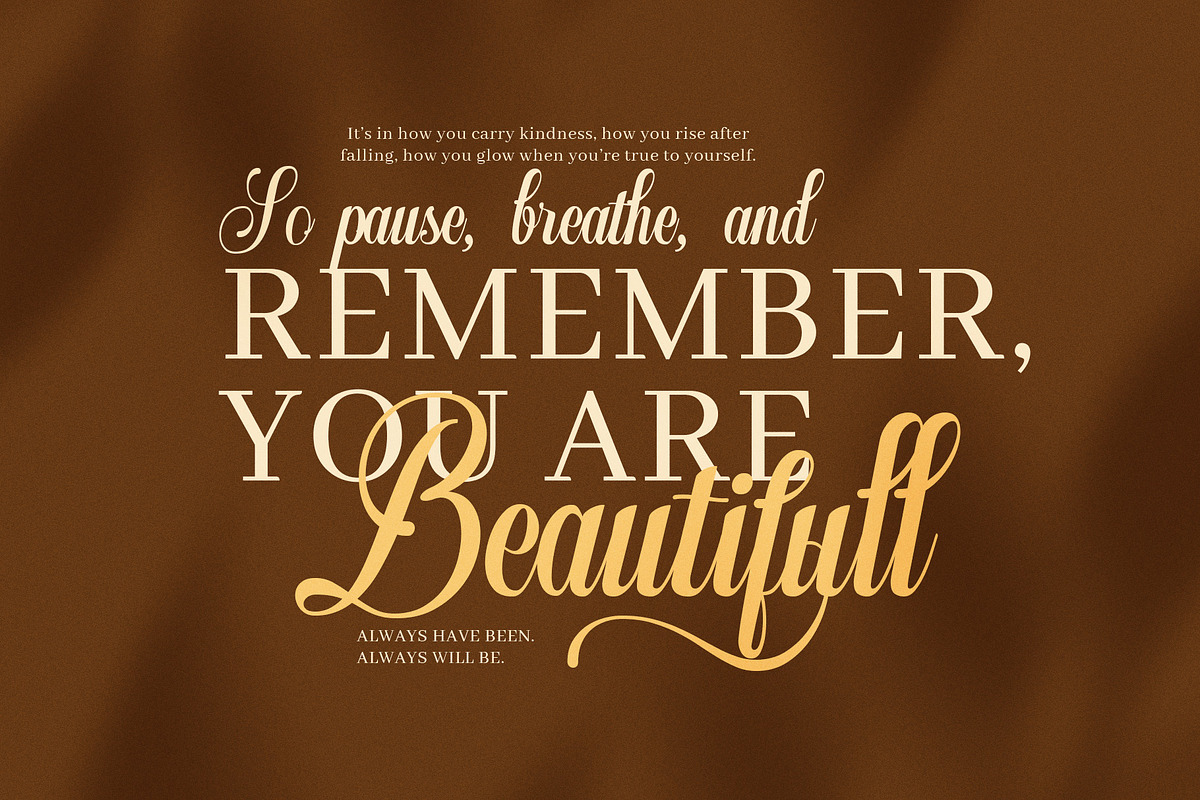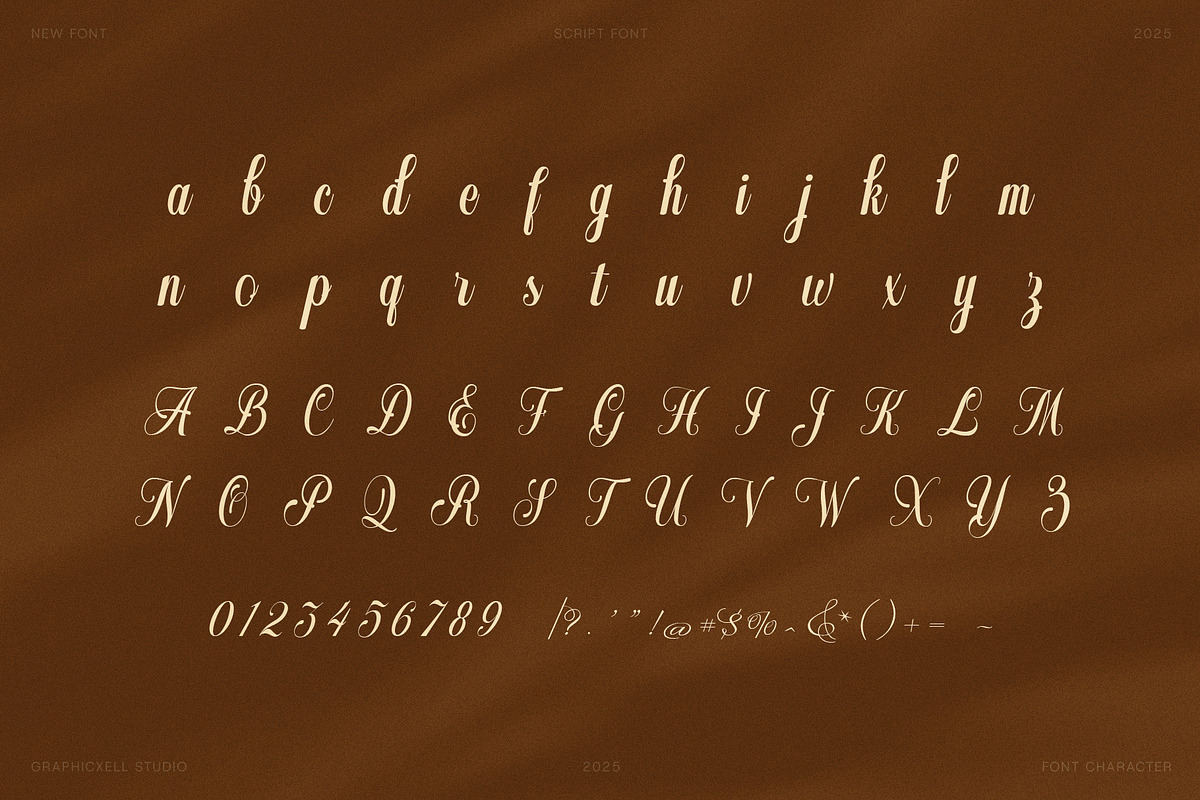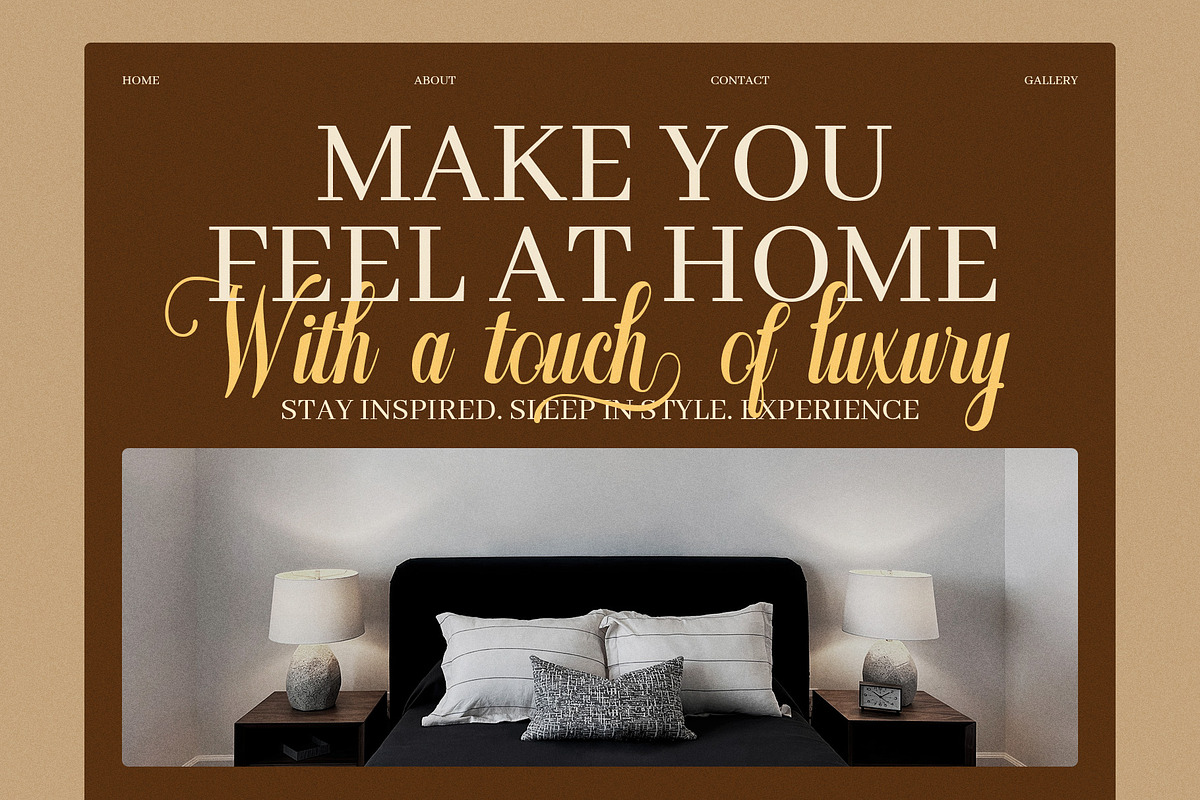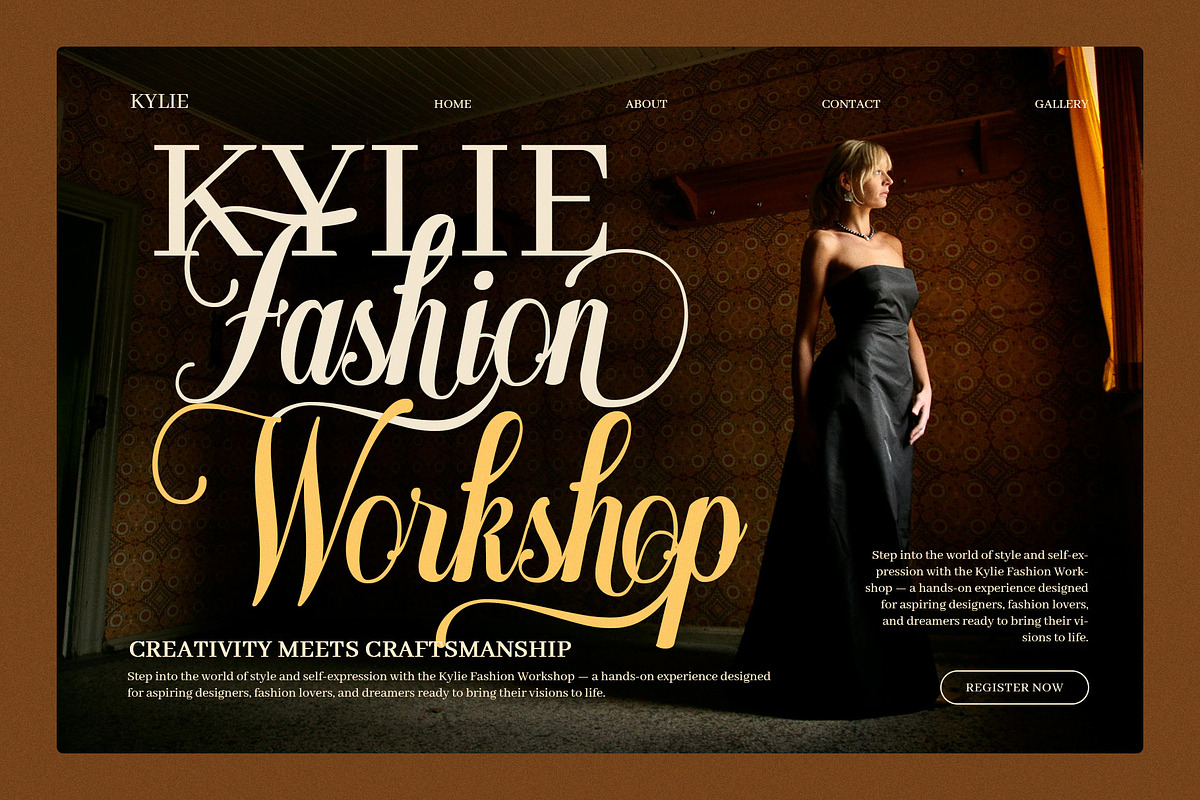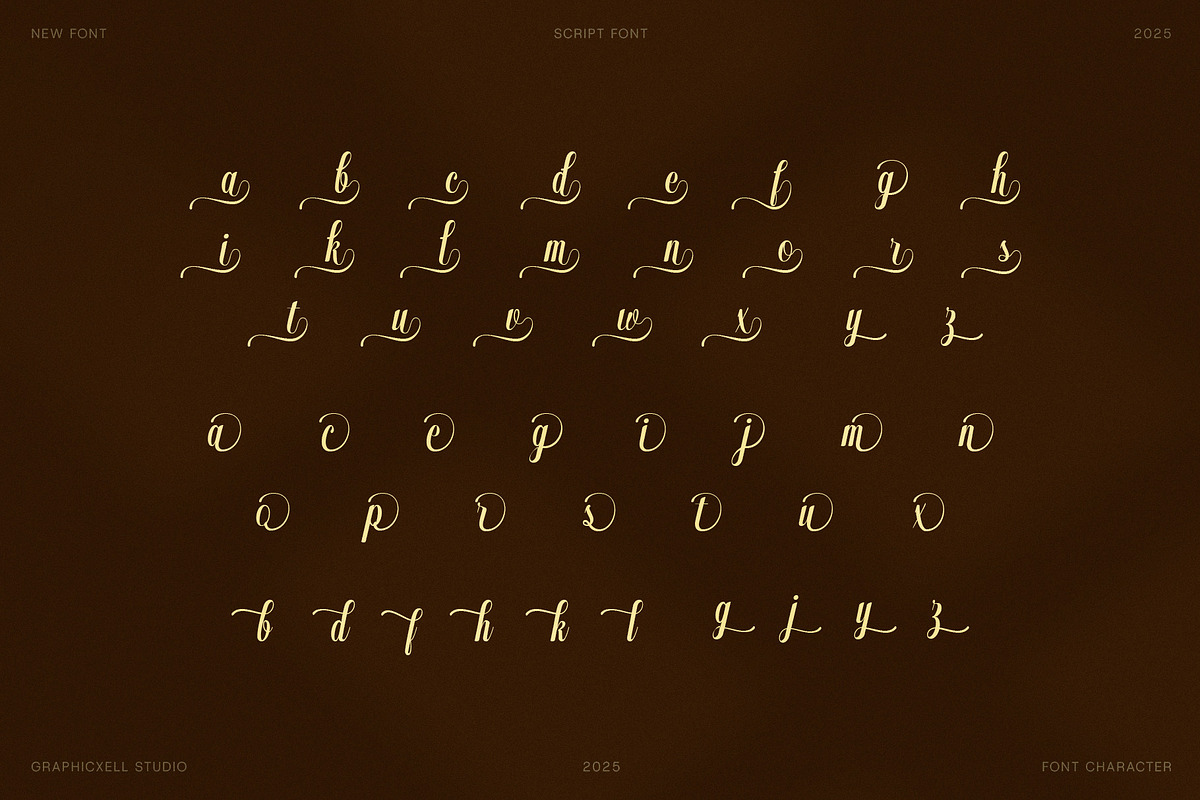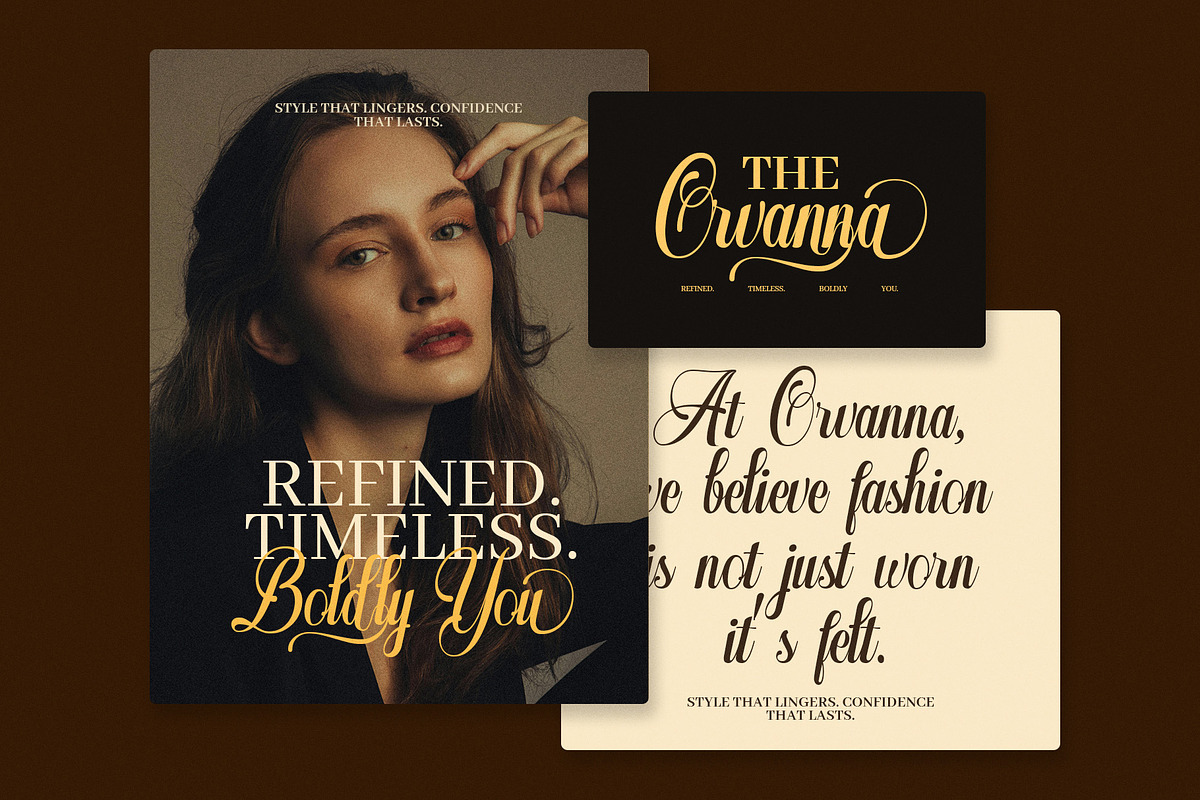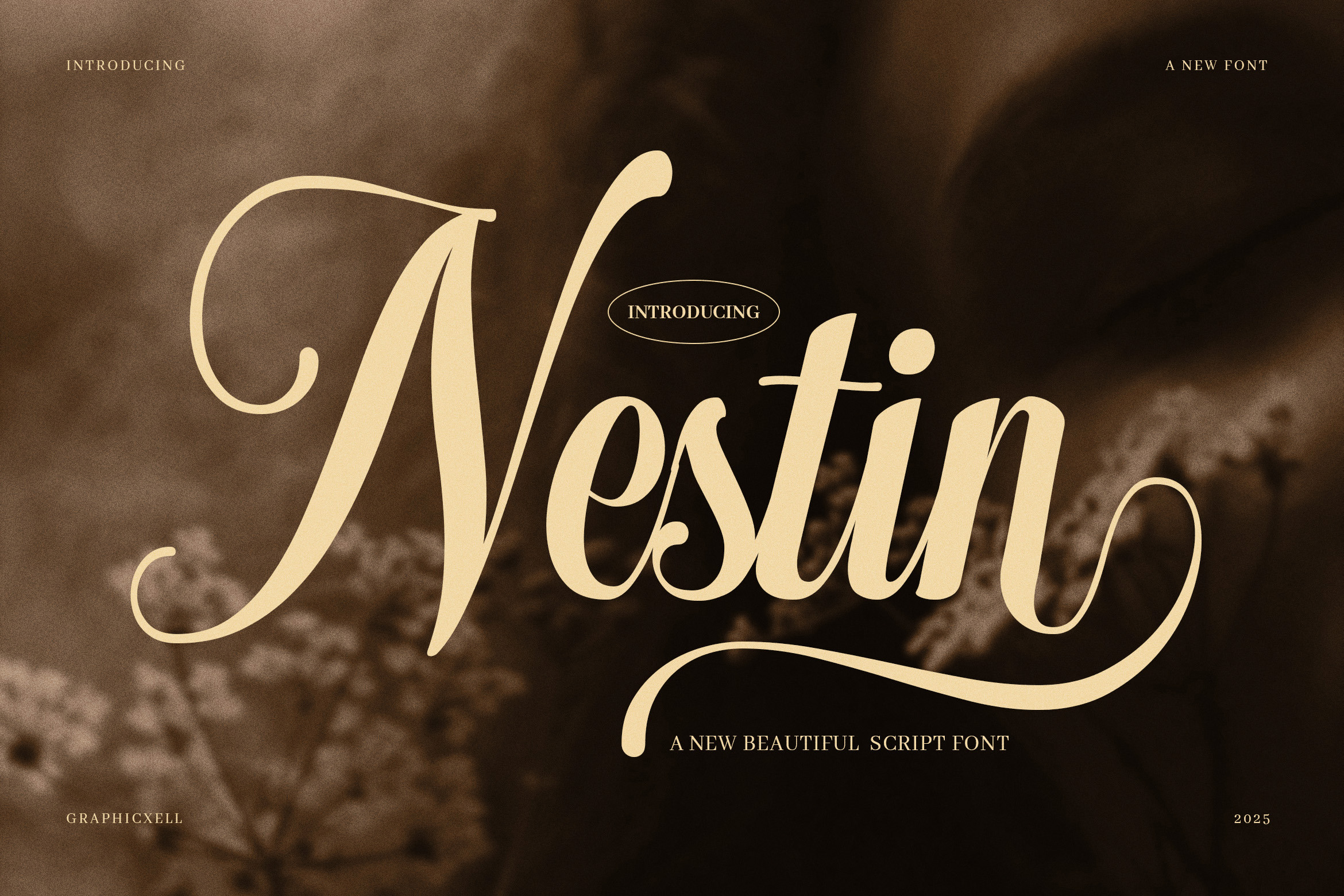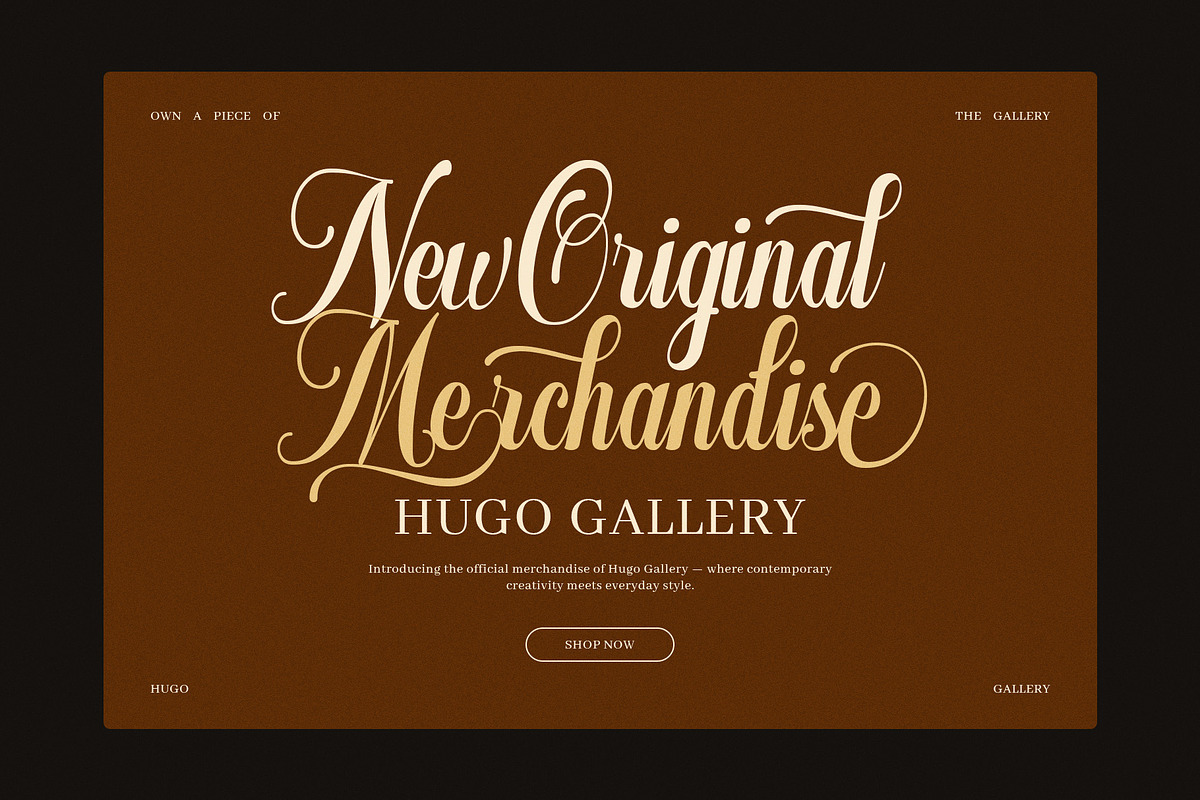
Nestin Elegant Script Font
Nestin is an elegant script font created to express beauty, warmth, and refined emotion. It features flowing strokes, graceful curves, and balanced letterforms that feel natural and expressive. Because of its smooth rhythm, Nestin brings a personal and luxurious touch to every design.
This script font blends modern elegance with classic calligraphy style. As a result, it works beautifully for fashion branding, lifestyle visuals, and inspirational quotes. Moreover, each letter connects smoothly, allowing words to feel fluid and alive. The soft contrast and stylish swashes add charm without overwhelming the message.
Nestin is ideal for designers who want elegance with clarity. Therefore, it fits perfectly in logos, packaging, social media graphics, and website headers. In addition, it performs well in print projects such as wedding invitations, greeting cards, and premium product labels.
Why choose Nestin Script Font?
Elegant handwritten style with smooth flow
Beautiful swashes and natural connections
Clear readability with artistic character
Perfect for branding, fashion, and quotes
Suitable for both digital and print use
Furthermore, Nestin adapts easily to many creative themes. Whether you design for fashion, beauty, home décor, or luxury lifestyle brands, this font adds warmth and personality. Because of its consistent spacing, it also pairs well with serif or sans-serif fonts.
Nestin doesn’t just decorate words. Instead, it helps tell a story. Each curve feels intentional, while each stroke feels confident. Consequently, your designs appear more emotional, stylish, and memorable.
In conclusion, Nestin is a script font made for creators who value elegance and expression. Use it to elevate your designs and communicate beauty with confidence.